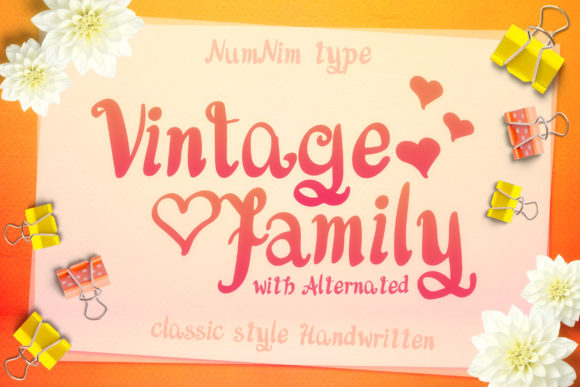
In an era where aesthetics and charm collide, allow us to introduce the Vintage Family Font, a masterpiece that evokes nostalgia and captivates imaginations. Designed by the creative minds at numnim, this script font is not merely a collection of letters; it's a gateway to a bygone era, a whisper of history in typographic form.
Picture yourself embarking on a journey through time, where every word you type dances across the screen with an air of elegance and sophistication. The Vintage Family Font's chunky letters, reminiscent of weathered parchment, add a touch of authenticity and depth to your designs. As your fingers glide across the keyboard, intricate swashes and playful swirls unfurl, adding a touch of whimsy and intrigue to your creations.
With the Vintage Family Font, you'll discover a font that is as versatile as it is beautiful. Whether you're crafting heartfelt greeting cards, captivating social media posts, or unleashing your creativity in countless other projects, this font will elevate your designs to new heights.
But what truly sets the Vintage Family Font apart is its PUA encoding. This innovative feature grants you effortless access to a treasure trove of glyphs and swashes, empowering you to explore the full potential of this typographic gem. Experiment with different combinations, mix and match elements, and let your imagination run wild as you create designs that are uniquely yours.
With the Vintage Family Font, you're not just downloading a font; you're embracing a legacy, a heritage that spans generations. Its timeless beauty will add a touch of enchantment to your creations, captivating your audience with its undeniable charm.
Step into the world of the Vintage Family Font today and let your words take on a life of their own. Immerse yourself in the magic of yesteryears and create designs that resonate with your soul.